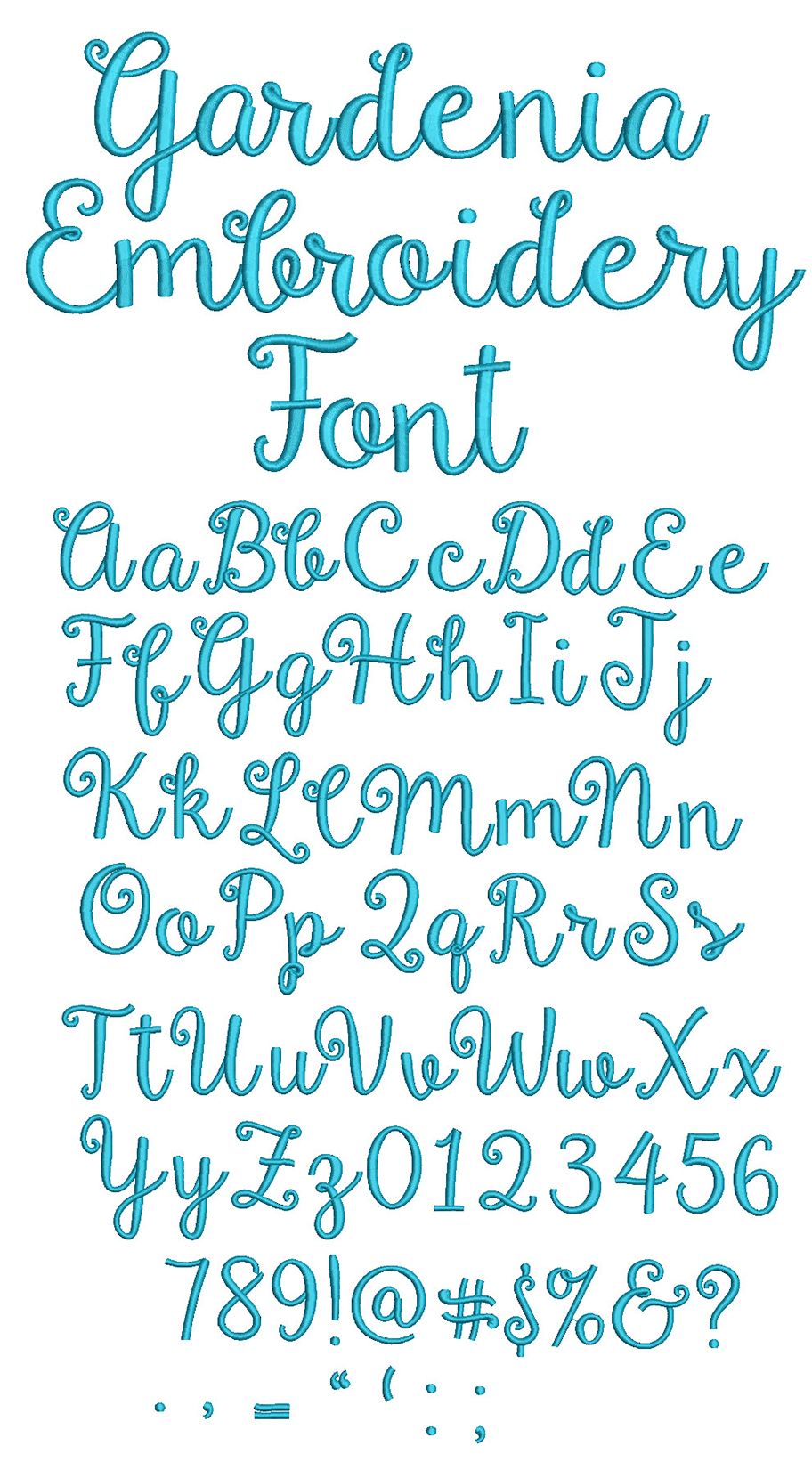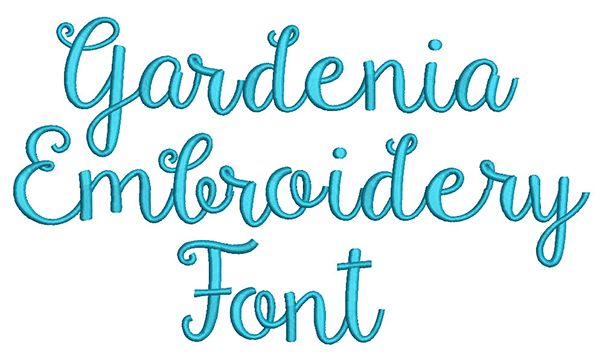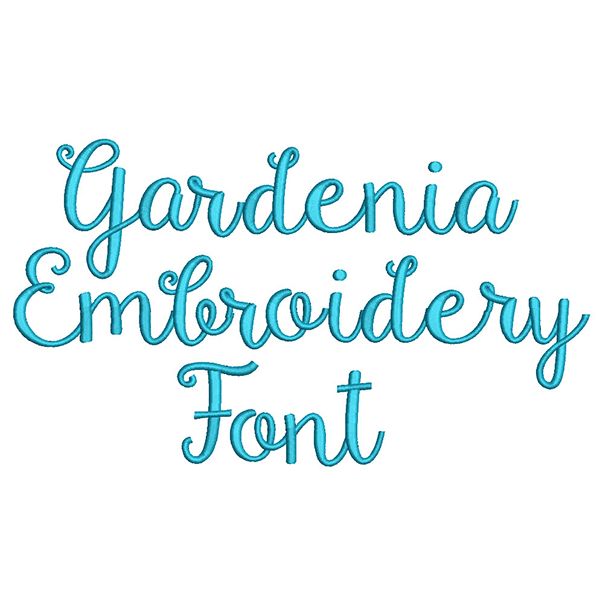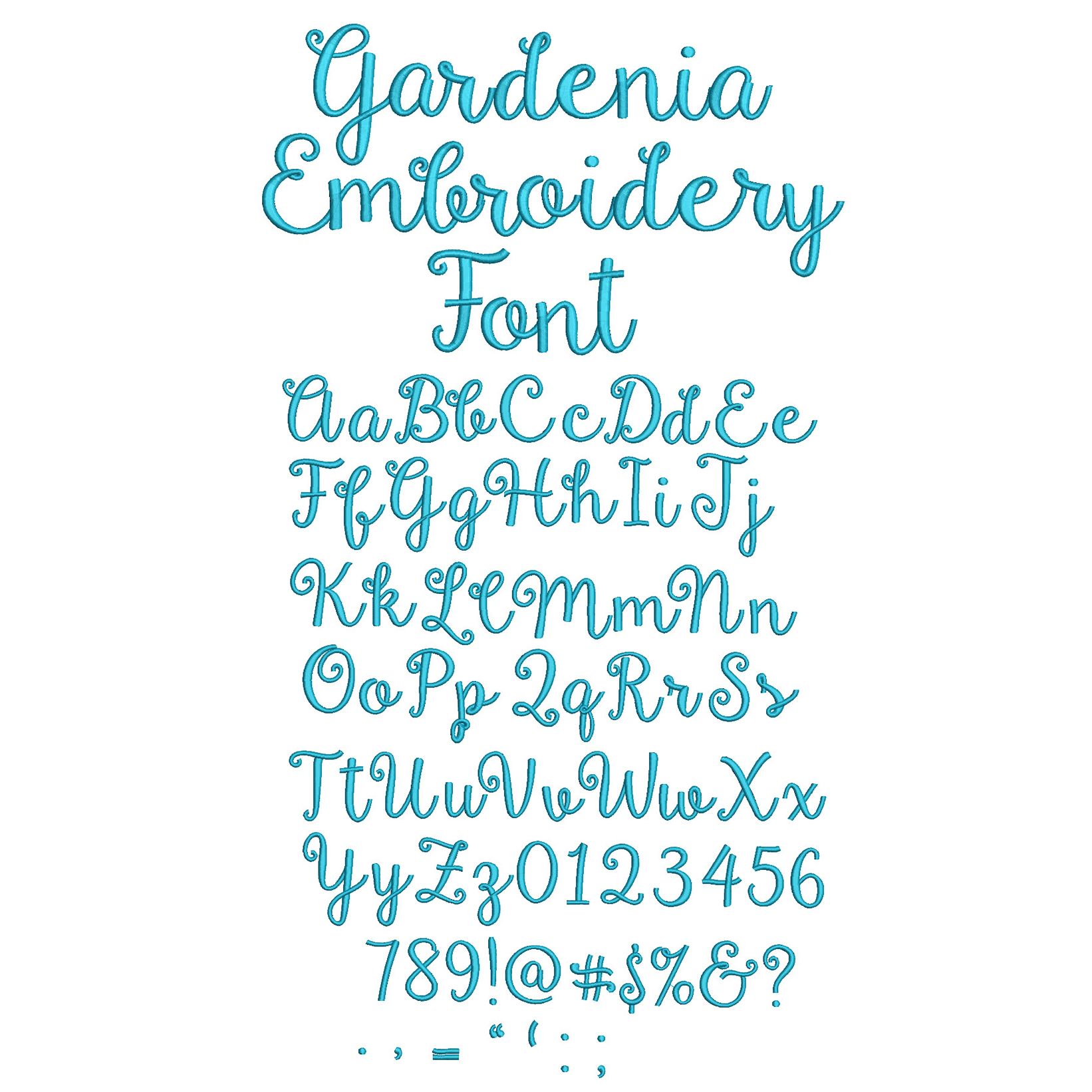
Gardenia Script Satin Stitch Embroidery Font
Beautiful script font! All of our font alphabets are 100% manually digitized to bring you maximum stitch quality.